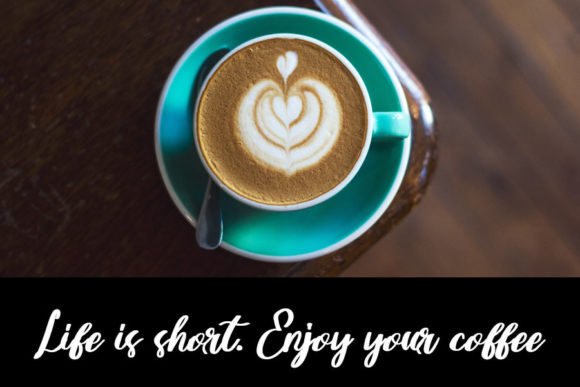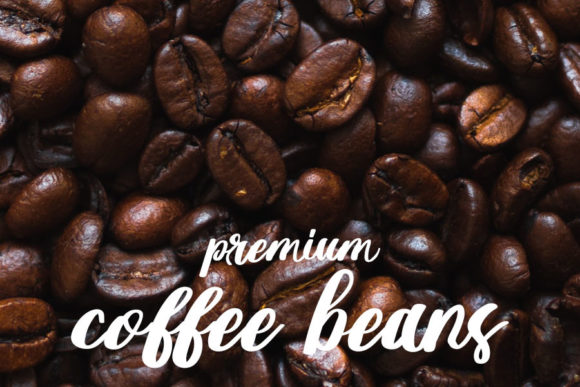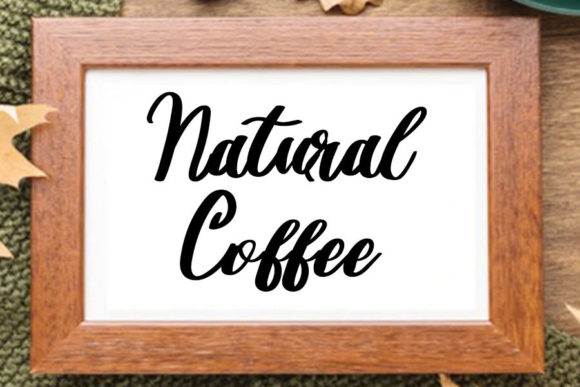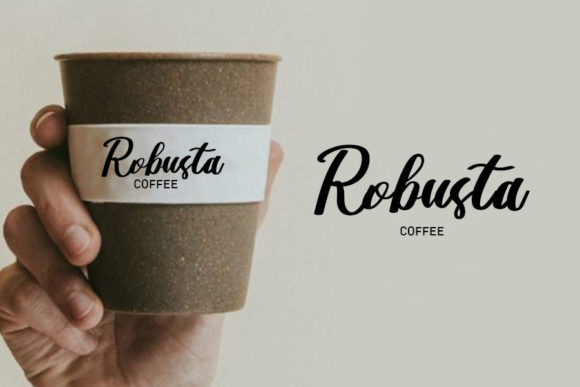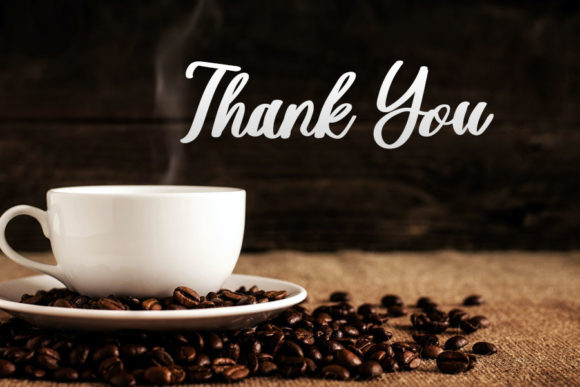
Discover the Charming Black Coffee Font: Elevate Your Designs with a Playful Twist
Are you on the hunt for a font that adds a touch of whimsy and playfulness to your designs? Look no further than the Black Coffee font, a lovely script font that is sure to capture your audience’s attention. With its charming, dancing characters, this font is perfect for designers and crafters looking to add a unique flair to their creative projects.
What Makes Black Coffee Font So Special?
Black Coffee is a script font that boasts a distinctive, hand-drawn feel, with each character carefully crafted to convey a sense of movement and energy. The font’s playful characters seem to dance along the baseline, giving your text a lively, dynamic appearance that’s sure to stand out. Whether you’re working on a branding project, crafting a social media post, or designing a greeting card, Black Coffee font is the perfect choice for adding a touch of personality to your work.
Key Features of Black Coffee Font
- Charming, playful characters: Each character in the Black Coffee font has been carefully designed to convey a sense of whimsy and fun, making it perfect for designs that require a playful touch.
- Dancing baseline: The font’s unique baseline gives the impression that the characters are dancing, adding a dynamic, energetic feel to your text.
- Hand-drawn feel: The Black Coffee font has a distinctive, hand-drawn feel that sets it apart from more traditional fonts.
- Script font: As a script font, Black Coffee is perfect for adding a touch of elegance and sophistication to your designs.
How to Use Black Coffee Font in Your Designs
Black Coffee font is incredibly versatile, making it suitable for a wide range of design projects. Here are just a few ideas to get you started:
- Branding and logos: Use Black Coffee font to create a unique, memorable logo that reflects your brand’s personality.
- Social media graphics: Add a playful touch to your social media posts with Black Coffee font, making them stand out in crowded feeds.
- Greeting cards and invitations: The font’s elegant, script feel makes it perfect for creating beautiful greeting cards and invitations.
- Packaging design: Use Black Coffee font to add a touch of whimsy to your product packaging, making it more eye-catching on store shelves.
Tips for Getting the Most Out of Black Coffee Font
To make the most of the Black Coffee font, here are a few tips to keep in mind:
- Experiment with colors: The Black Coffee font looks great in a range of colors, so don’t be afraid to experiment and find the perfect hue for your design.
- Play with pairings: Black Coffee font pairs well with a range of other fonts, so try combining it with different fonts to create a unique look.
- Use it sparingly: While Black Coffee font is perfect for adding a playful touch to your designs, it’s best used sparingly to avoid overwhelming the reader.
In conclusion, the Black Coffee font is a charming, playful script font that’s perfect for designers and crafters looking to add a unique flair to their creative projects. With its dancing characters, hand-drawn feel, and elegant script style, this font is sure to capture your audience’s attention and elevate your designs to the next level. So why not give Black Coffee font a try and see the difference it can make in your designs?